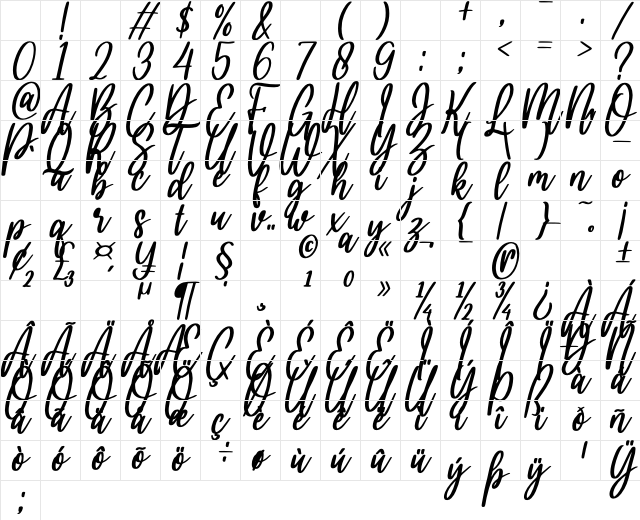
hello bella is a composed and adaptable typeface that performs quietly and consistently across a wide range of design contexts. The slanted form adds forward momentum and visual energy.